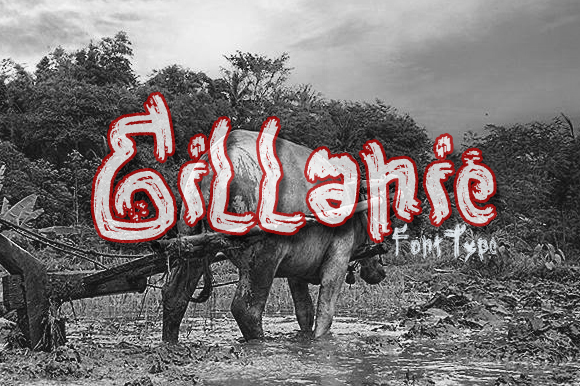
Introducing Gillanie Font, a Display font family that captivates and inspires creativity. This modern, stylish typeface is not just a collection of letters; it's an expression of individuality, crafted to turn your words into art.
Gillanie Font is a unique fusion of playfulness and sophistication. Its playful ligatures dance across your screen, adding a touch of whimsy to your projects. Yet, beneath its charm lies a solid foundation of elegance, ensuring that your message remains clear and impactful.
Dive into the depths of Gillanie Font's character set and discover a world of visual possibilities. With over 200 glyphs at your fingertips, including stylistic alternates, you'll have the freedom to create truly unique designs.
Gillanie Font is not just a font; it's a gateway to a world of creative expression. Whether you're a designer, an artist, or simply someone who loves to play with words, Gillanie Font is your perfect companion. Its versatility extends from logos and branding to packaging and social media graphics, making it an indispensable tool for anyone who wants to make a statement.
Don't settle for ordinary fonts that blend into the background. Embrace the extraordinary with Gillanie Font. Let your creativity soar as you explore the endless possibilities of this captivating typeface. Experience the power of Gillanie Font today and watch your designs transform into works of art.